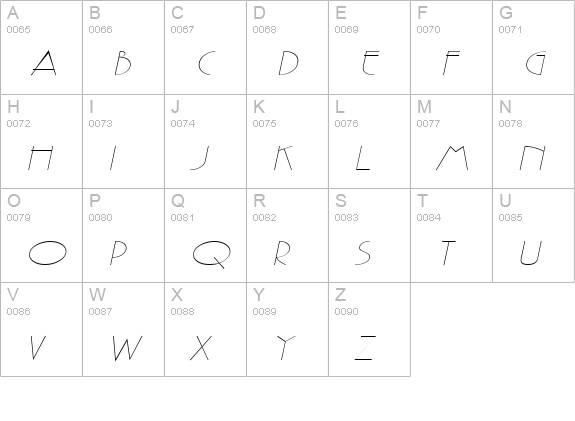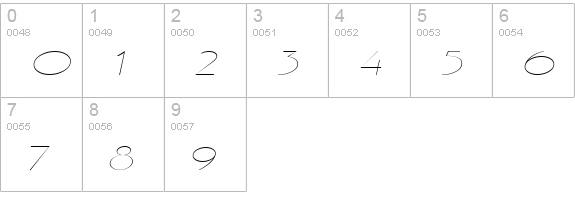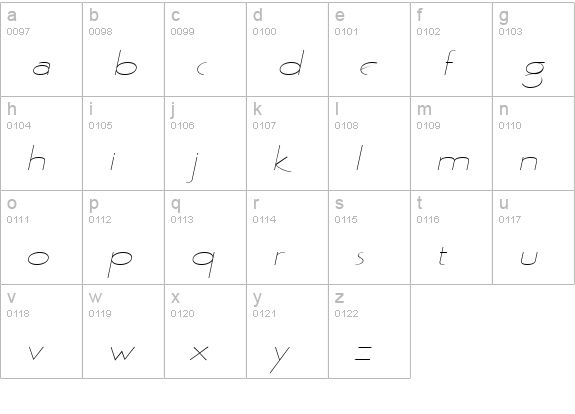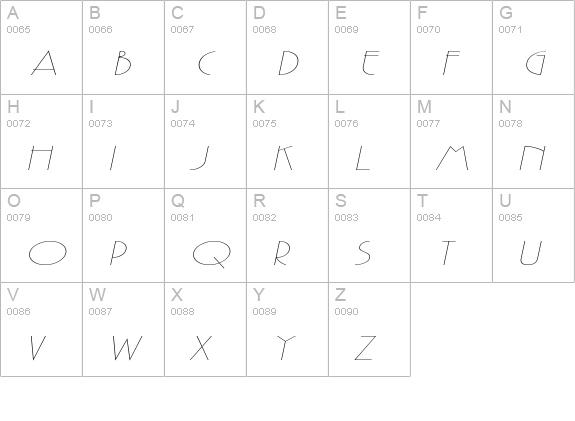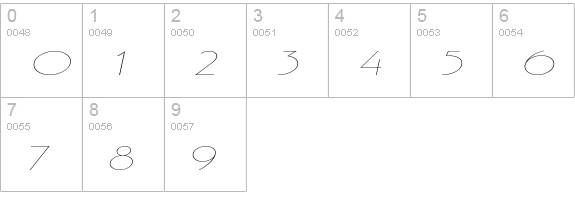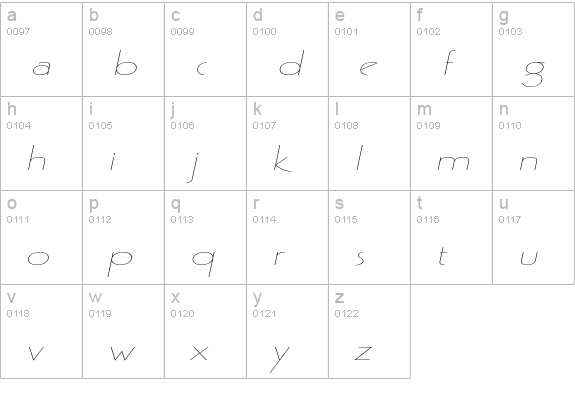
Gaston Extended Italic is a distinctive, extended-width, italic variant in the Gaston typeface family \xE2\x80\x94 well suited to design and typography projects.
Introducing Gaston Extended Italic font, a modern and stylish typeface designed to make your designs stand out. With its sleek and elegant italics, Gaston Extended adds a touch of sophistication to any project. The flowing curves and unique letterforms of this font are perfect for adding a touch of elegance to your branding, marketing materials, or any design project. What's even better is that Gaston Extended Italic font is available for free download at FontsMarket.com. You can easily bring this stunning typeface into your creative arsenal without breaking the bank. So why wait? Elevate your designs with Gaston Extended Italic font today!